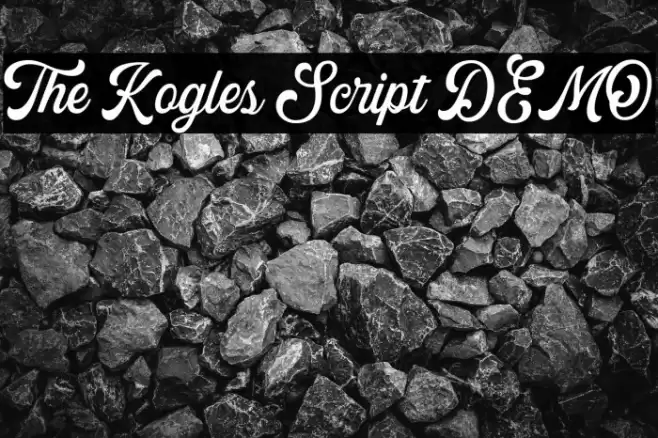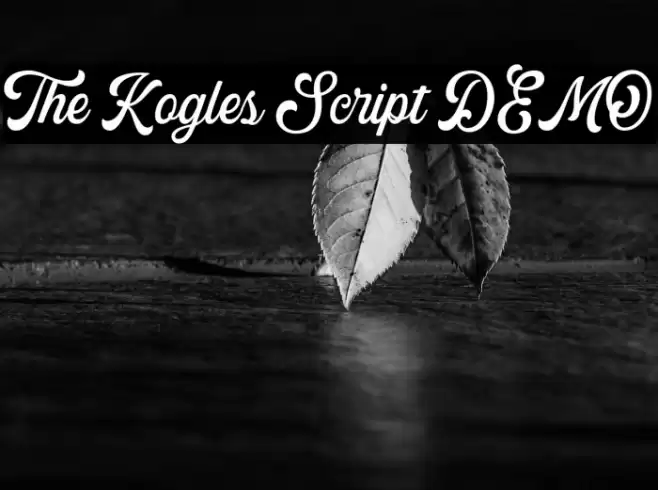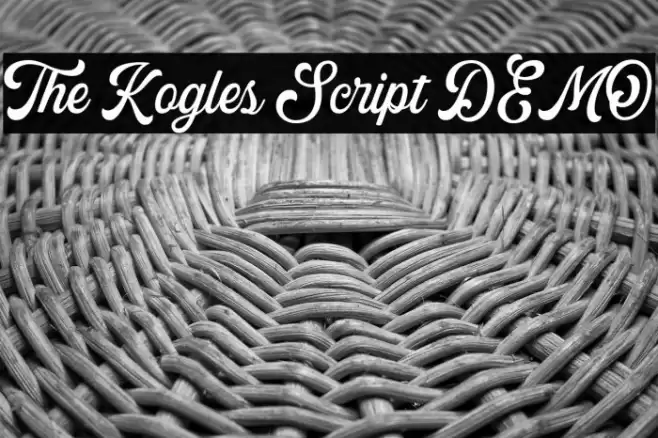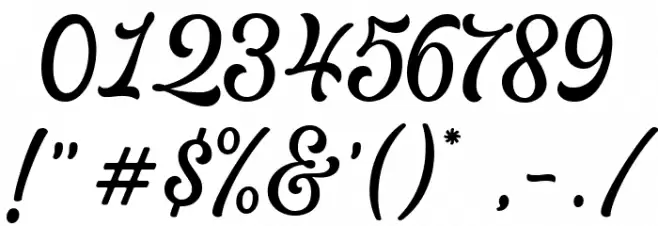
The Kogles Script DEMO Font
The Kogles Script DEMO Description
This elegant script font features a flowing, cursive style with smooth, connected strokes that exude sophistication and charm. The uppercase letters are ornate and decorative, while the lowercase letters maintain a consistent, fluid motion. The numerals and special characters are designed with the same attention to detail, ensuring a cohesive look across all text. This font's graceful curves and loops make it ideal for projects that require a touch of elegance and personalization.
A sophisticated script font with flowing, connected strokes and elegant curves from Regular fonts.
- Proposed Projects: Ideal for wedding invitations, greeting cards, branding, and logo design.
- Overall Style: Elegant
- Use Case: Logos, Invitations, Decorative text